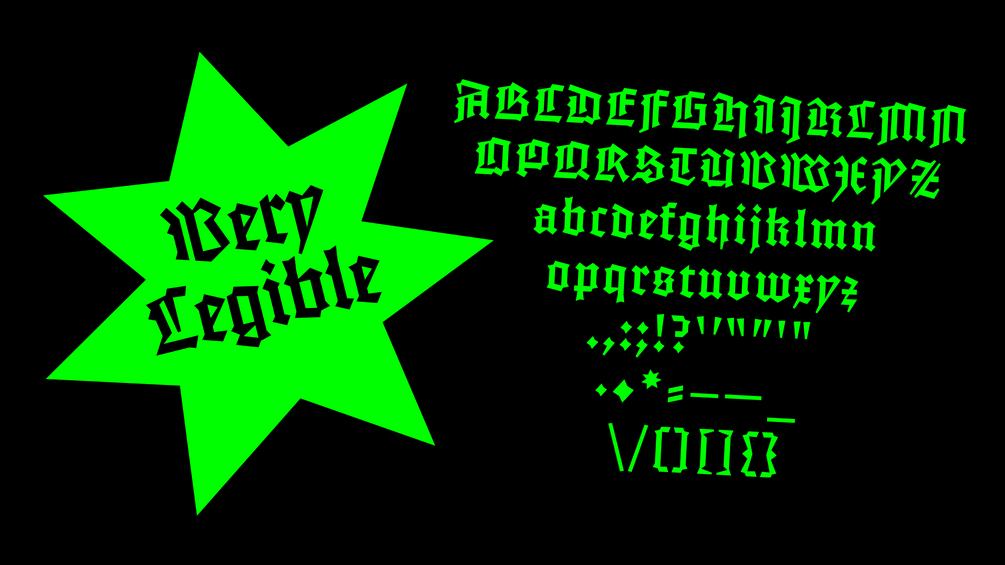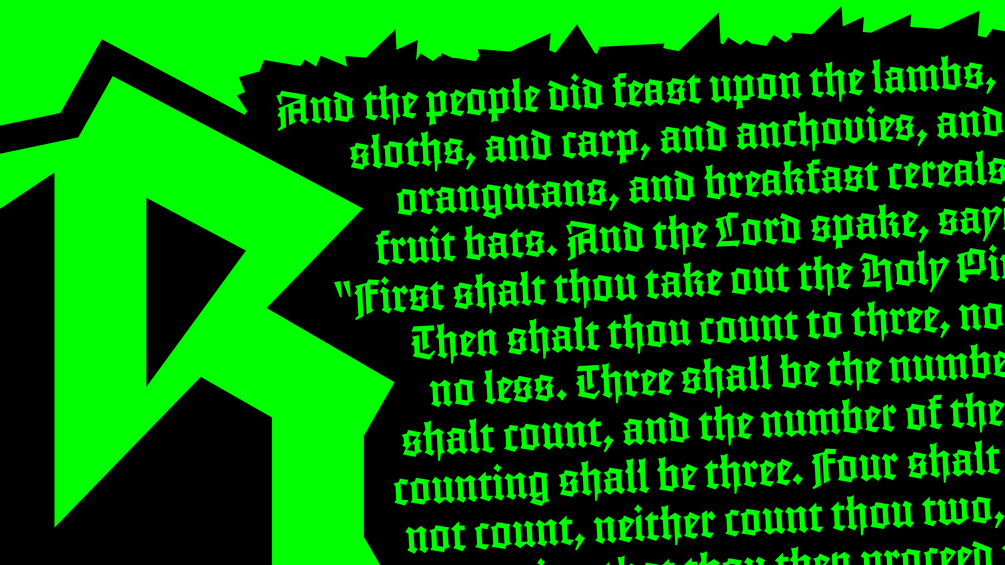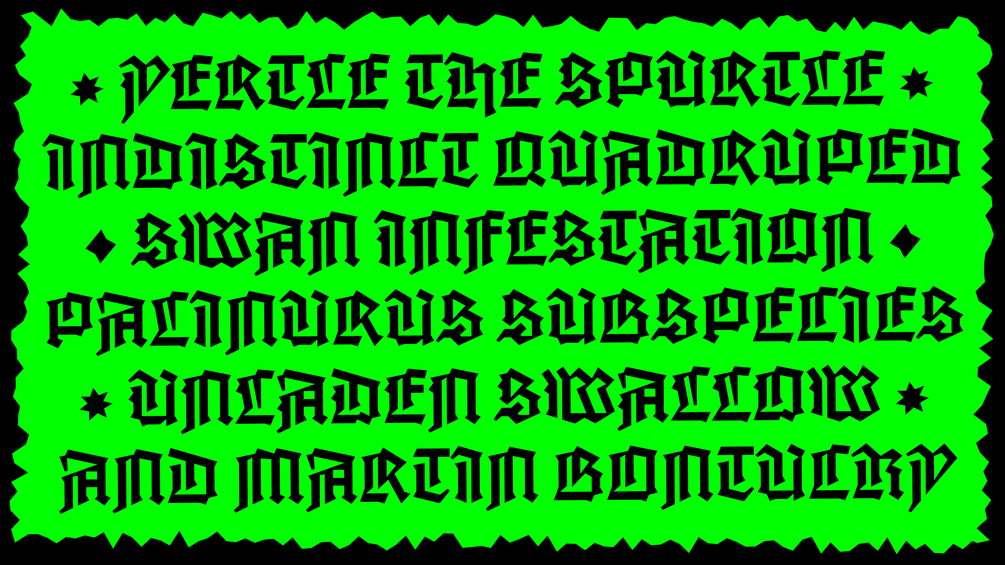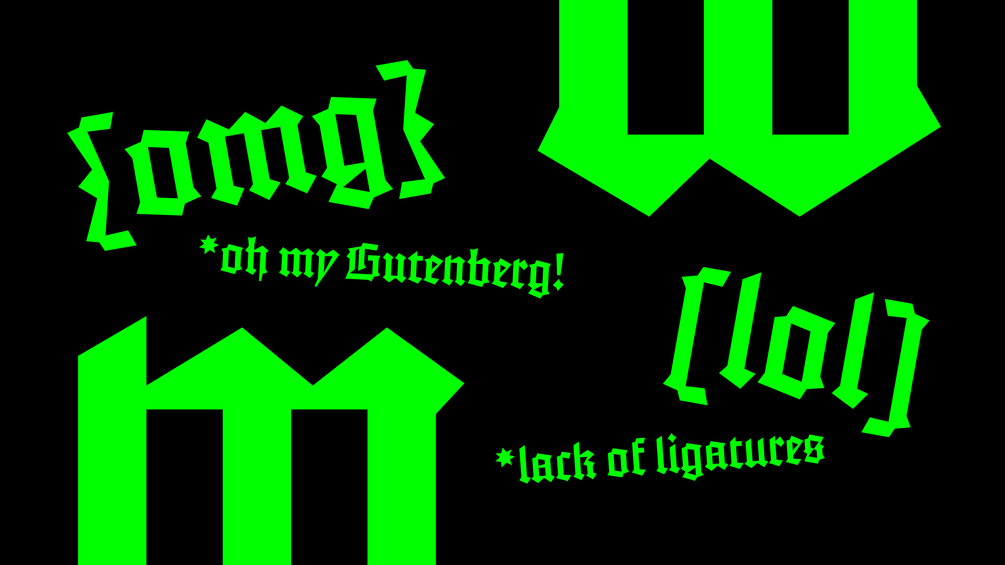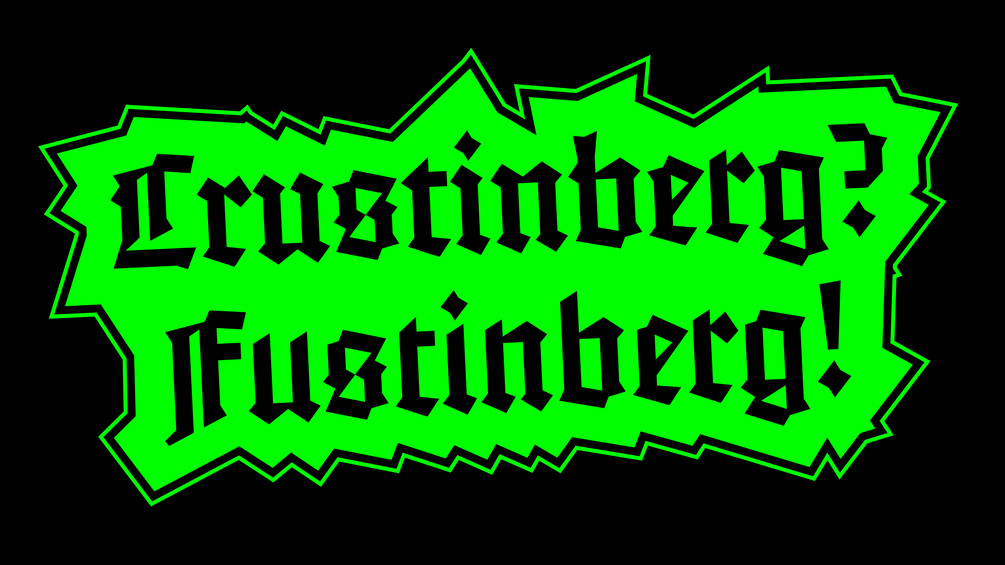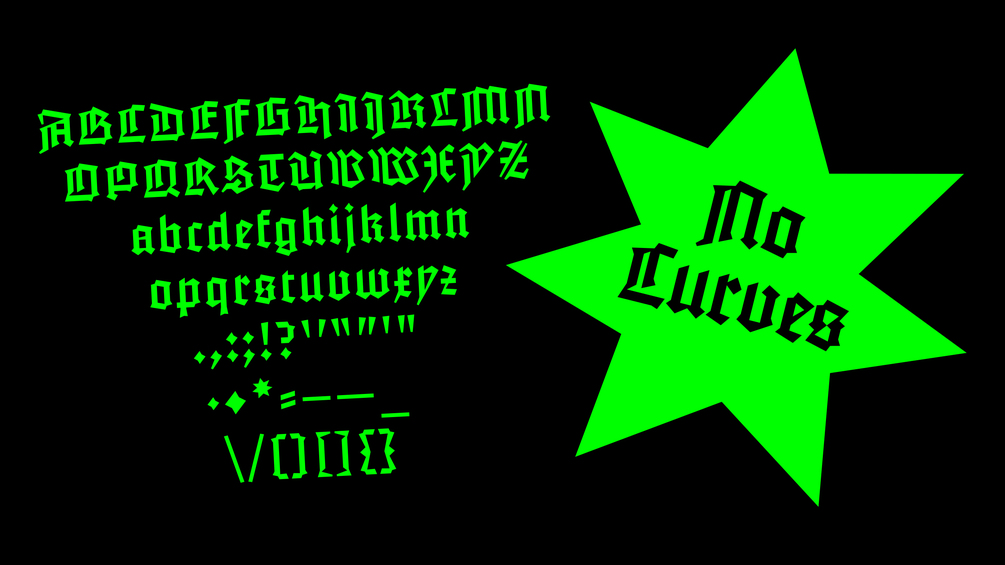
Fustinberg
Not a Gutenberg revival.
We all know that blackletter fonts need more spikes and fewer curves. This typeface is certainly not an interpretation of the B42 bible type, and whether it was also inspired by 15th-century German woodcuts and engravings is anybody's guess. Whatever it is, it's synthetic, it's edgy, and it's space-conscious.
That's right, this typeface is very polite and keeps its hands to itself. Instead of ligatures, Fustinberg employs some distinctly Gutenbergian contextual alternates to solve for glyph pairs that would typically clash in a blackletter font. No touchy-touchy!
Did we mention that there are no ligatures? These alternates are also available as a complete, spurless stylistic set.
A very legible blackletter font